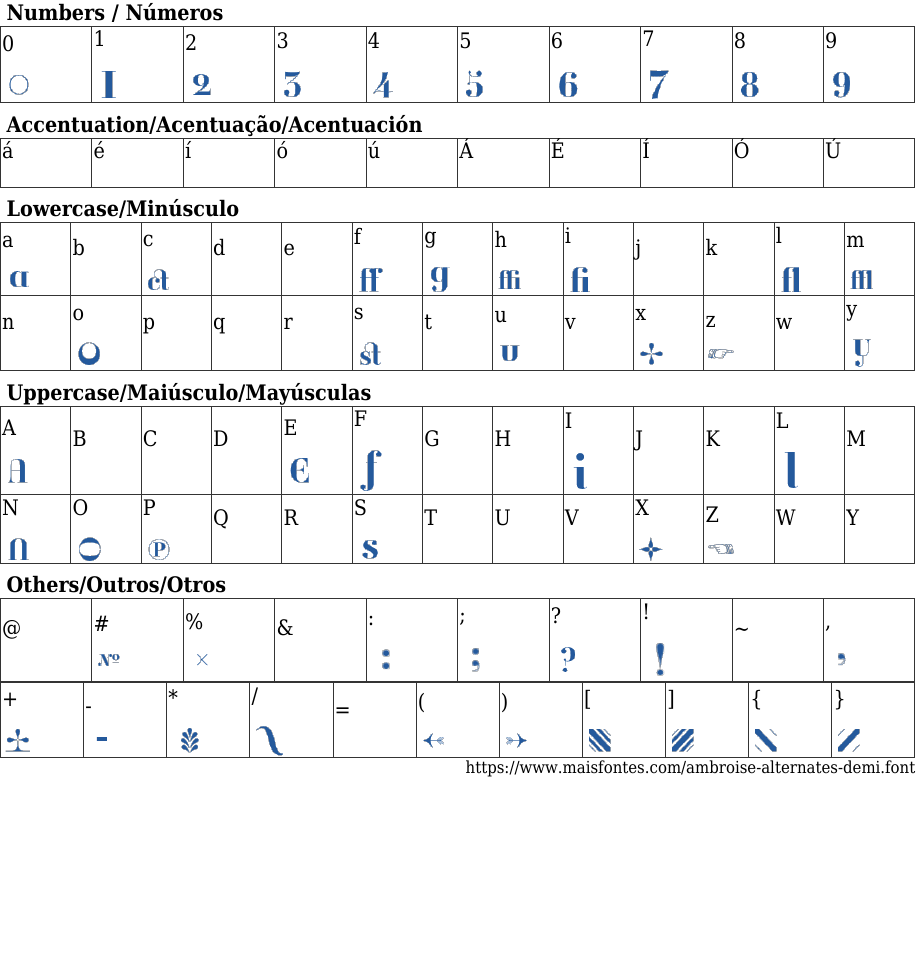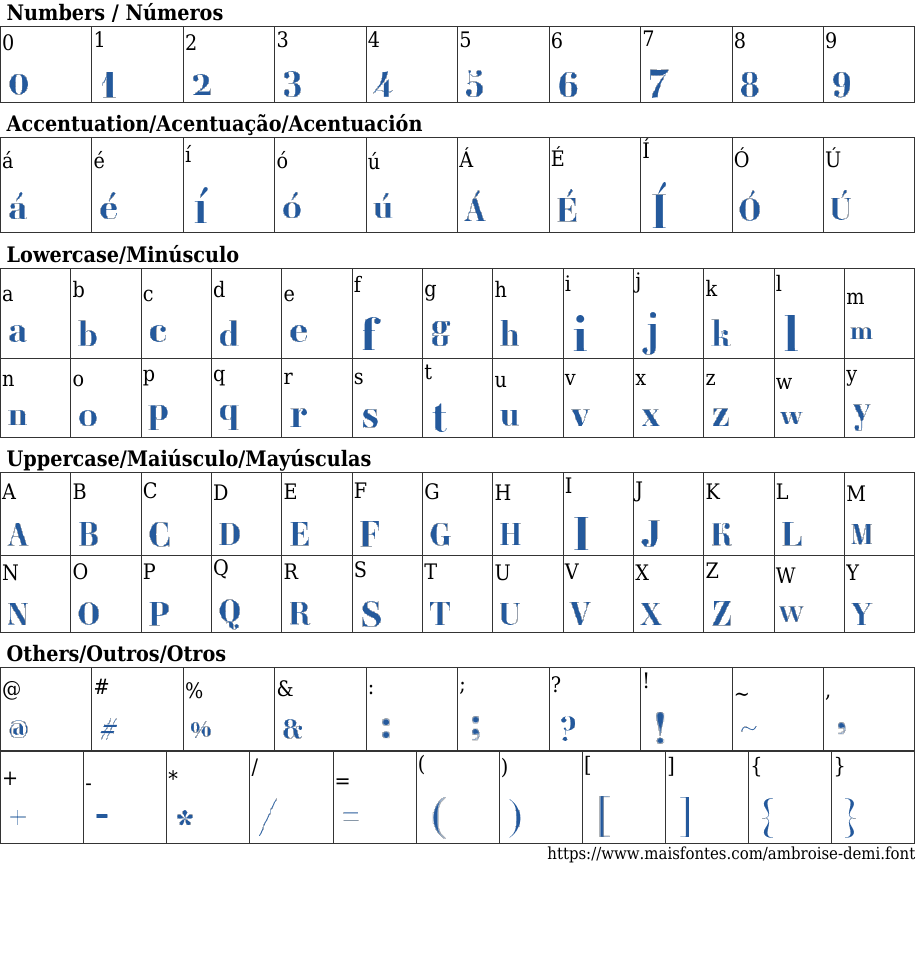
ITC Avant Garde Gothic Std Demi Bold Fonts Ambroise Std Demi Font An exquisite didot font in 18 series ambroise is a contemporary interpretation of various typefaces belonging to didot’s late. Learn more about its features, similar fonts, and font pairing. A serif typeface with 17 styles, available from adobe fonts for sync and. Discover the free ambroise std demi font at free font download ! Buy & download ambroise std demi,. Ambroise Std Demi Font.
Ambroise on Behance Ambroise Std Demi Font Ambroise std demi by adobe systems incorporated. Installable on pc, mac, linux, ios, and android platforms. Download ambroise std demi font. Explore ambroise designed by jean françois porchez at adobe fonts. An exquisite didot font in 18 series ambroise is a contemporary interpretation of various typefaces belonging to didot’s late style, conceived circa. Download ambroise demi regular for free. Buy. Ambroise Std Demi Font.
Ambroise Francois Alternates Bold Font FontYukle Ambroise Std Demi Font View sample text, character map, user rating and review for ambroise demi regular Explore ambroise designed by jean françois porchez at adobe fonts. A serif typeface with 17 styles, available from adobe fonts for sync and. Installable on pc, mac, linux, ios, and android platforms. Discover the free ambroise std demi font at free font download ! Buy & download. Ambroise Std Demi Font.